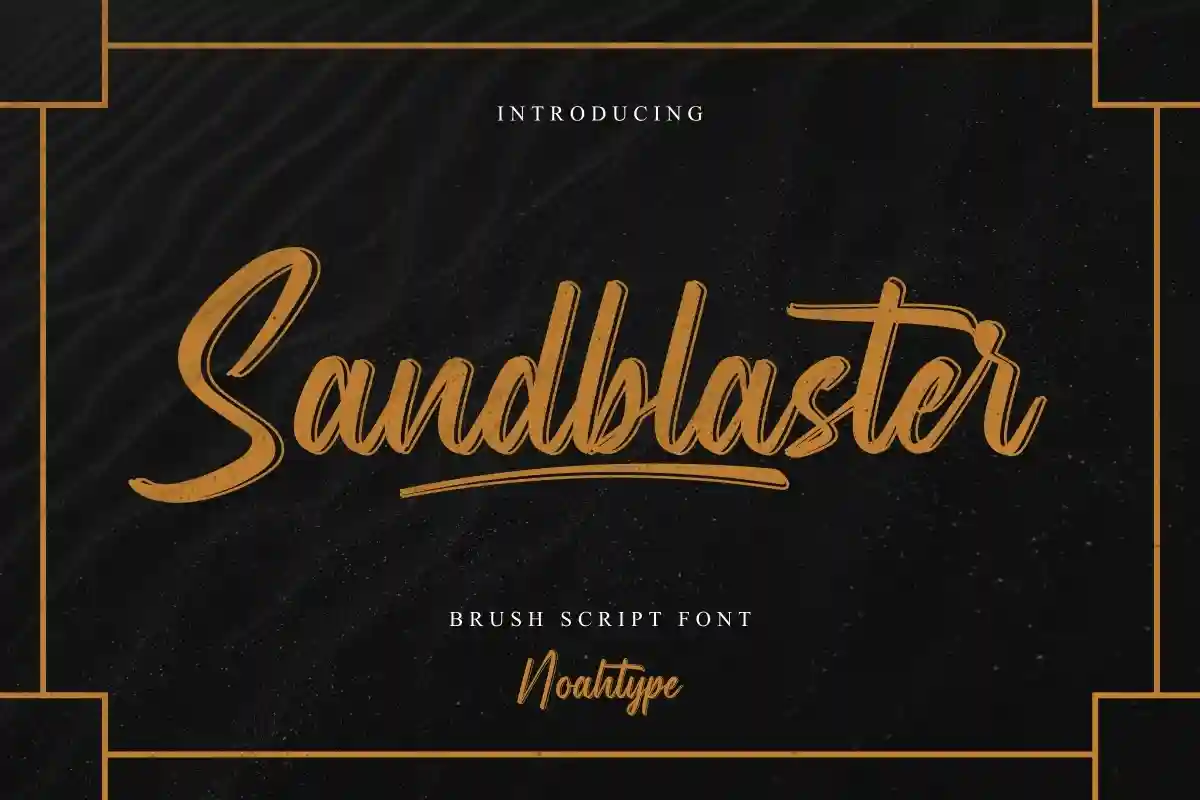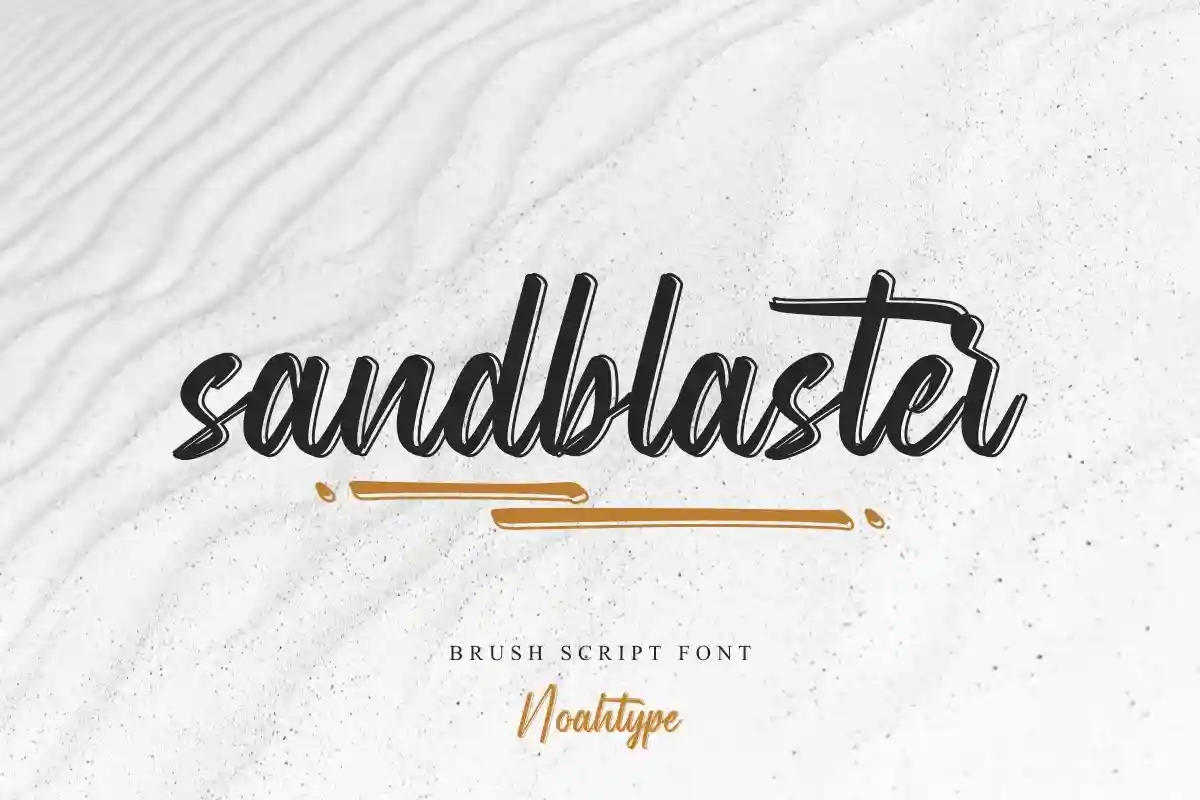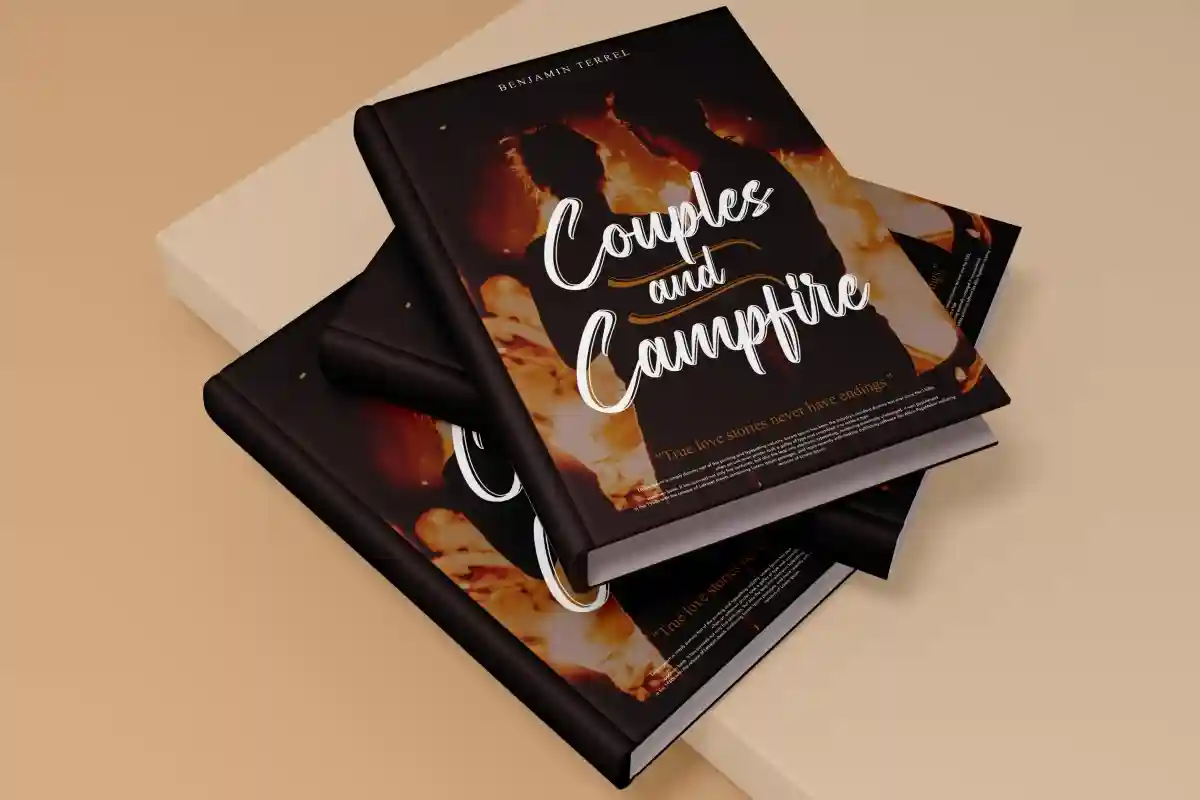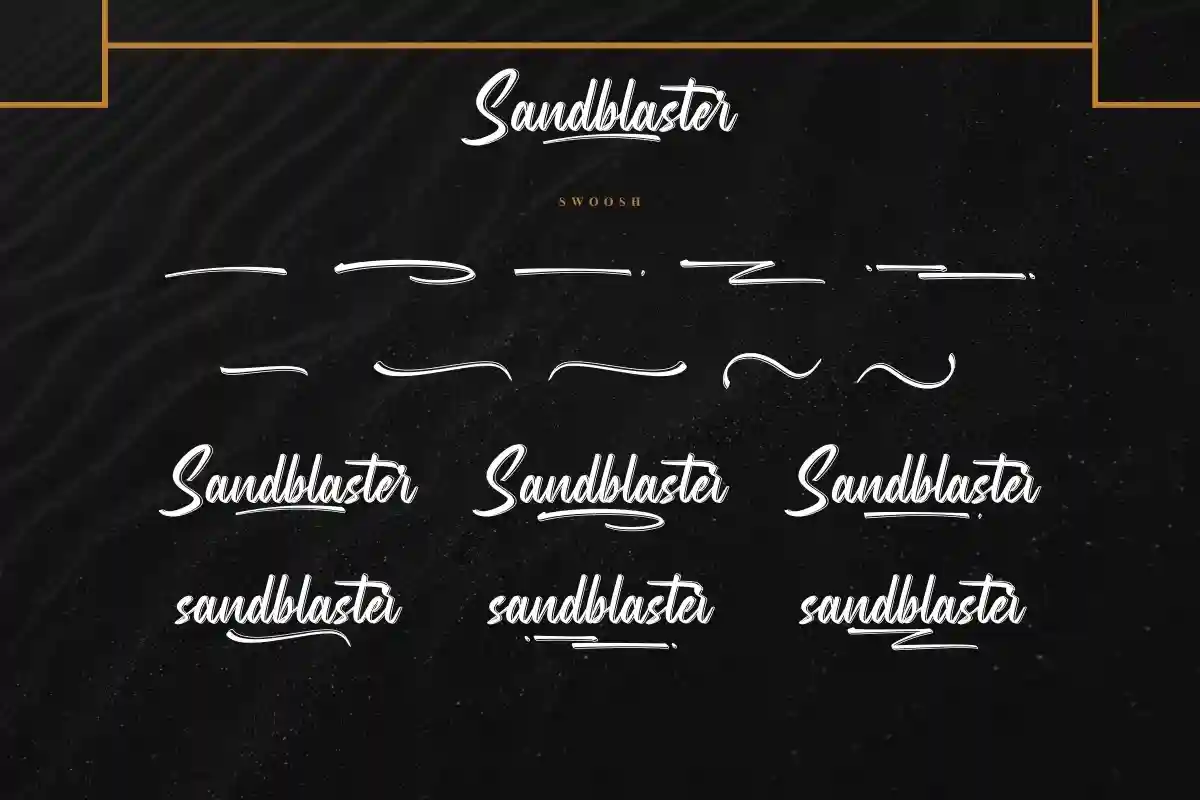
Sandblaster Font is a bold modern brush font made by NoahType. This font will add a personal handwriting look twist to any design project. This font is crafted carefully in every its single scratch, created to look as close to a natural handwritten script so that it can create the perfect combination on each glyph.
When we make this font, we really want to create a touch that is so free-flowing that it gives a natural impression on its use later. For example, if you want letter ‘s’ that has a flow sketch with letter ‘t’, you can find it in ‘st’ ligature glyph (just type in the text form below for trying). This brush font is for anyone who are needing of personal stylish for their designs.
This brush font will be awesome for motor club, sport, music, video, games, apps etc
Sandblaster Font includes full set of Uppercase and Lowercase Basic Characters, Numerals and Punctuation. Also it contains ligatures and a lot of alternates characters to perfectly make natural writing look that add more beautiful and aesthetic fonts to perfect your extraordinary project. Sandblaster will be awesome for logotype, invitation, cards, flyer, headline, promotion, social media posts etc
Authentic textured brush strokes for a natural, hand-drawn feel
Uppercase, lowercase, numbers, punctuation, and multilingual support